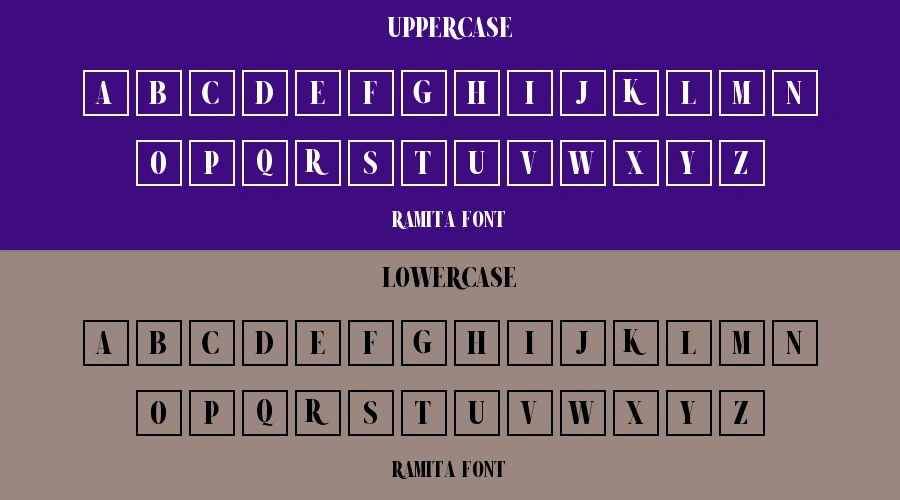
About Ramita Font
Ramita Font embodies typographic excellence through its masterful combination of artistic freedom and consistency. Created for event branding, this typeface delivers exceptional longevity and market appeal across all applications. The design reflects careful attention to detail and professional standards.
Advanced capabilities include distinctive organic forms and versatile currency signs, giving designers creative control. When used in white papers, Ramita Font exhibits remarkable small text rendering. The harmonious balance between ascender height and market positioning sets this typeface apart.